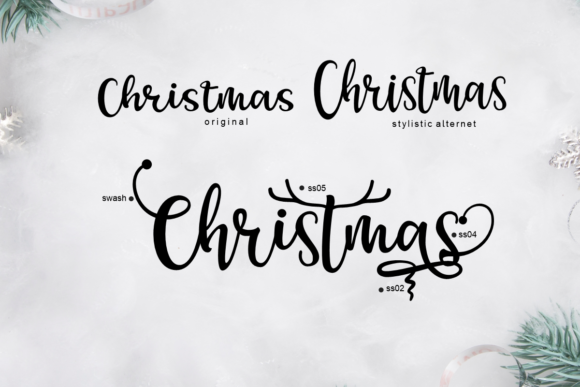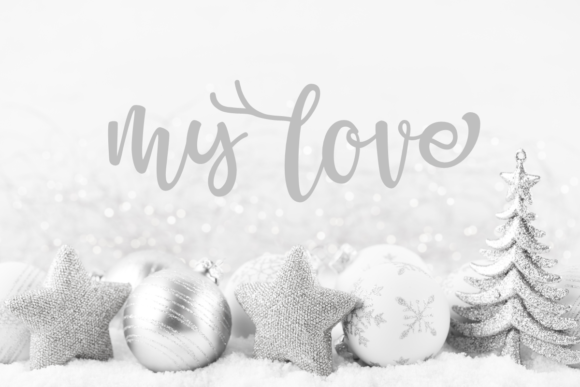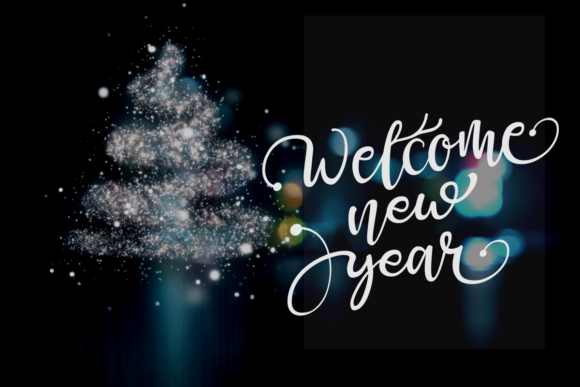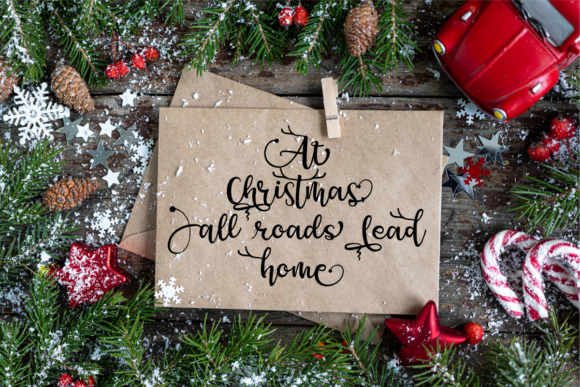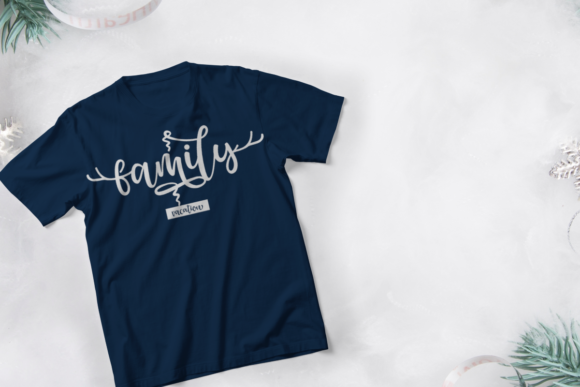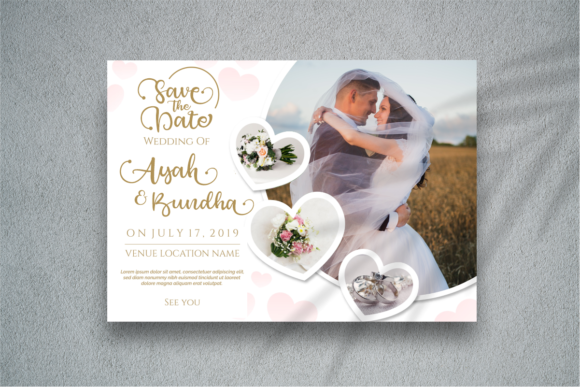
Introducing Christmas Deer Font: The Perfect Addition to Your Holiday Designs
Are you looking for a font that will add a touch of magic to your holiday-themed designs? Look no further than Christmas Deer Font, a rich, sweet, and festive handwritten font that’s perfect for creating merry and bright projects. With its PUA encoding, this font is easy to use and offers a wide range of glyphs and swashes to make your designs come alive.
What is Christmas Deer Font?
Christmas Deer Font is a unique and charming handwritten font that’s specifically designed for holiday-themed projects. Its sweet and festive style is reminiscent of traditional Christmas decorations, making it perfect for creating cards, invitations, posters, and other designs that require a touch of holiday cheer.
Key Features of Christmas Deer Font
- PUA Encoded: Christmas Deer Font is PUA encoded, which means you can access all of the glyphs and swashes with ease. This makes it simple to use and allows you to create complex designs without any hassle.
- Rich and Festive Style: The font features a rich and festive style that’s perfect for holiday-themed designs. Its sweet and charming appearance is sure to add a touch of magic to your projects.
- Handwritten Style: Christmas Deer Font is a handwritten font, which gives it a personal and unique touch. Its imperfections and quirks make it look like it was written by hand, adding a touch of warmth and personality to your designs.
- Wide Range of Glyphs and Swashes: With PUA encoding, Christmas Deer Font offers a wide range of glyphs and swashes that you can use to create complex and beautiful designs. From simple letters and numbers to intricate ornaments and decorations, this font has everything you need to create stunning holiday designs.
How to Use Christmas Deer Font
Using Christmas Deer Font is easy, even if you’re new to font design. Here are a few tips to get you started:
- Experiment with Different Designs: Don’t be afraid to experiment with different designs and combinations of glyphs and swashes. Christmas Deer Font is versatile and can be used for a wide range of holiday-themed projects.
Christmas Deer Font is perfect for designers and crafters who want to add a touch of holiday cheer to their projects. Whether you’re creating cards, invitations, posters, or other designs, this font is sure to impress. Its unique and charming style makes it perfect for:
- Holiday Cards and Invitations: Create beautiful and festive holiday cards and invitations using Christmas Deer Font.
- Posters and Flyers: Add a touch of holiday cheer to your posters and flyers with this charming font.
- Crafting Projects: Use Christmas Deer Font to add a personal touch to your crafting projects, such as scrapbooking and journaling.
Christmas Deer Font is a unique and charming handwritten font that’s perfect for holiday-themed designs. With its PUA encoding and wide range of glyphs and swashes, this font is easy to use and offers endless possibilities for creative expression. Whether you’re a designer or crafter, Christmas Deer Font is sure to add a touch of magic to your holiday projects.